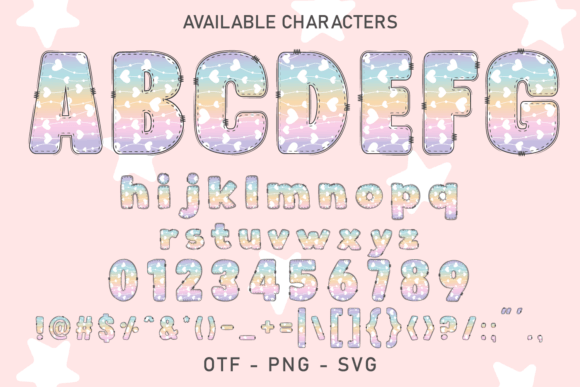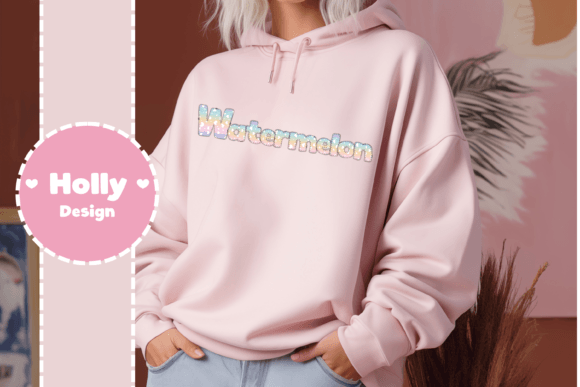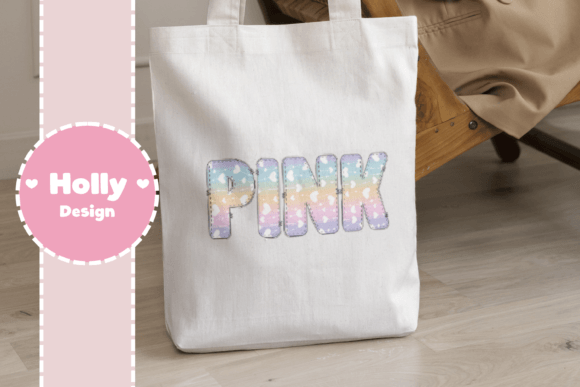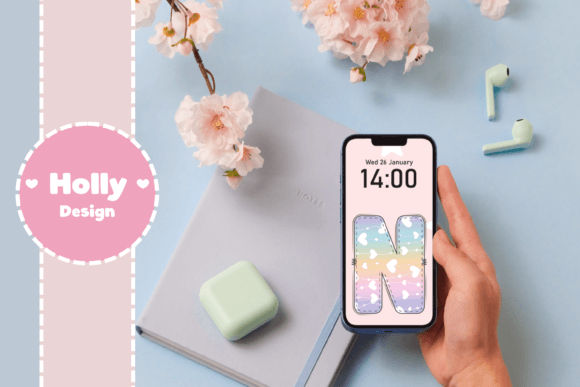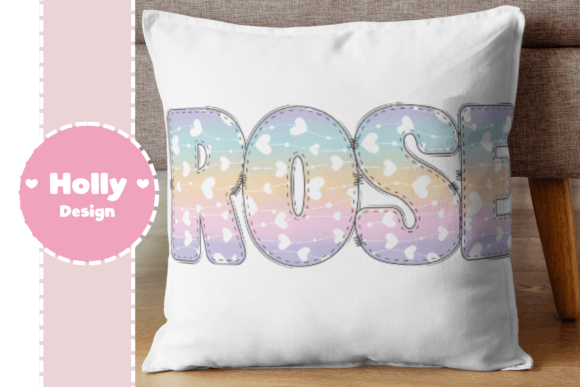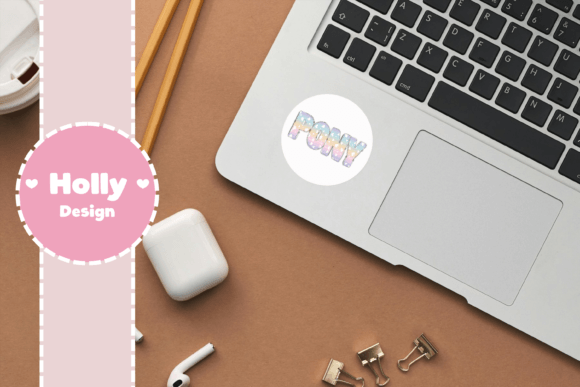
Introduction to Pastel Love Font Font
Fonts play a crucial role in design, and the Pastel Love Font font is a typeface that brings both character and versatility to any project. Whether you’re working on a branding project, a website, or a print design, the Pastel Love Font font offers a unique style that can elevate your work.
Pastel Font is a lovely and beautifully designed color font.
The font is hand drawn and its letters are full of patterns that represent the day of lovely Choose from trendy handwritten, display, and decorative styles for invitations, logos, posters, and more.
Key Features of Pastel Love Font Font
Why Choose Pastel Love Font Font?
The Pastel Love Font font is more than just a typeface – it’s a design tool that helps you communicate your message with style and clarity. Its unique character set and versatile design make it suitable for a wide range of applications, from elegant invitations to bold headlines.
With its carefully crafted letterforms and balanced proportions, the Pastel Love Font font ensures readability and visual appeal across all mediums.
What makes Pastel Love Font font special?
The Pastel Love Font font stands out with its unique design, exceptional readability, and versatility across various design applications.